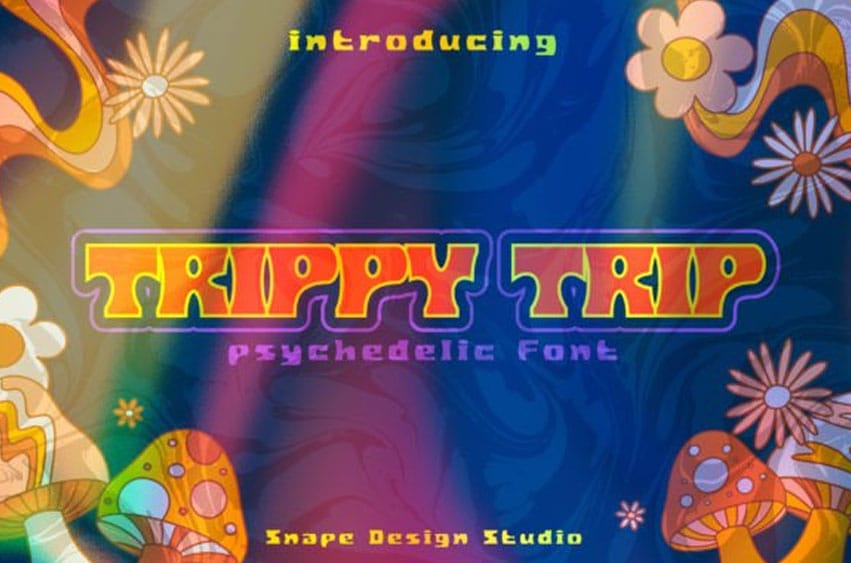
Trippy Trip Font is a psychedelic display font. This font is inspired by vintage albums and posters from 1960s music bands.
It has a classic, fun, and groovy vibe and is guaranteed to make an impact!